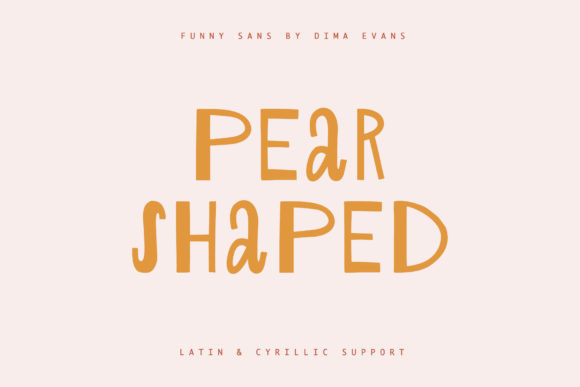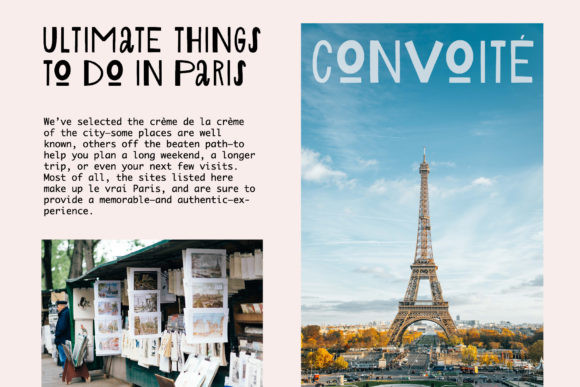
Pear Shaped Font
Pear Shaped is an eye-catching display font with a unique style. It is perfect for branding, wedding invitations, menu design, YouTube covers and much more.